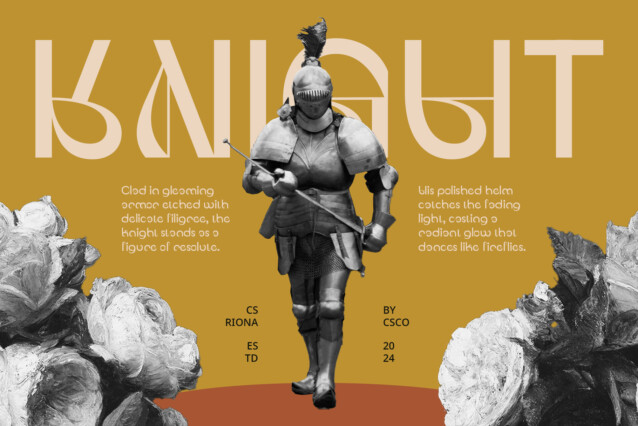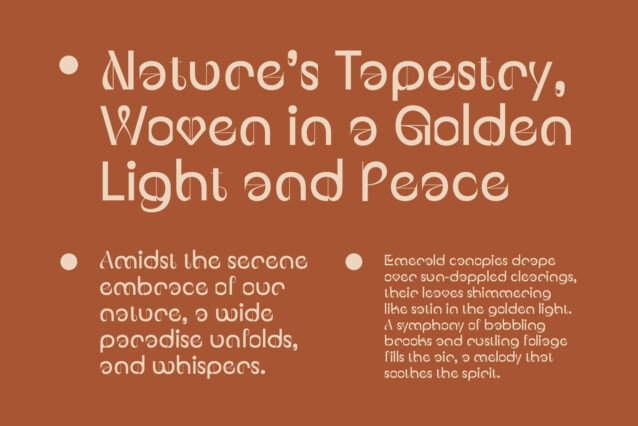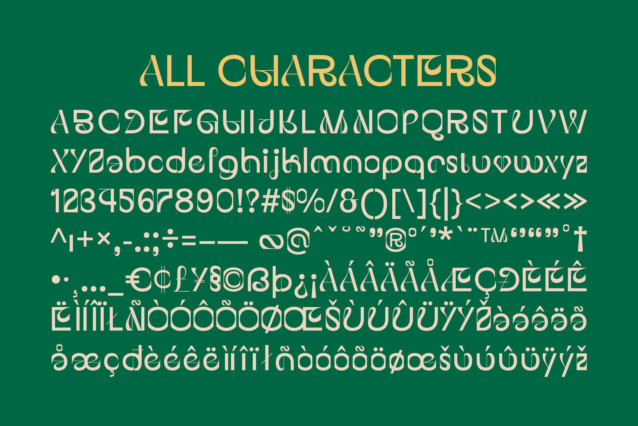
CS Riona Font
CS Riona Font is a modern sans-serif display font designed to captivate with its bold, distinctive style. It features a combination of visually engaging and unconventional design elements, including distorted letterforms and artistic ornaments that set it apart from the crowd. The strong lines and dynamic shapes give the font a confident presence, while its playful nature adds a creative flair.